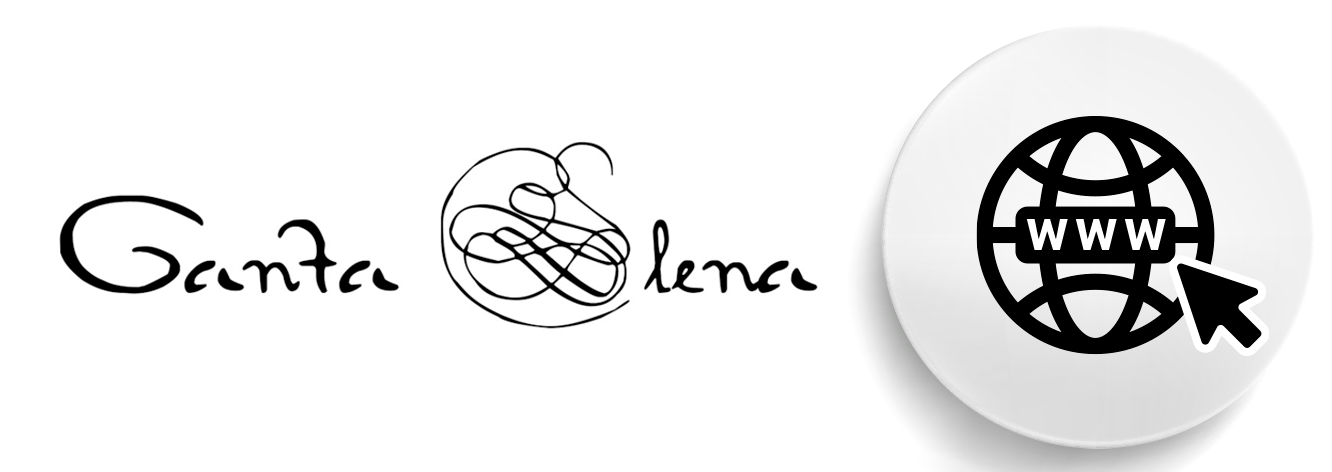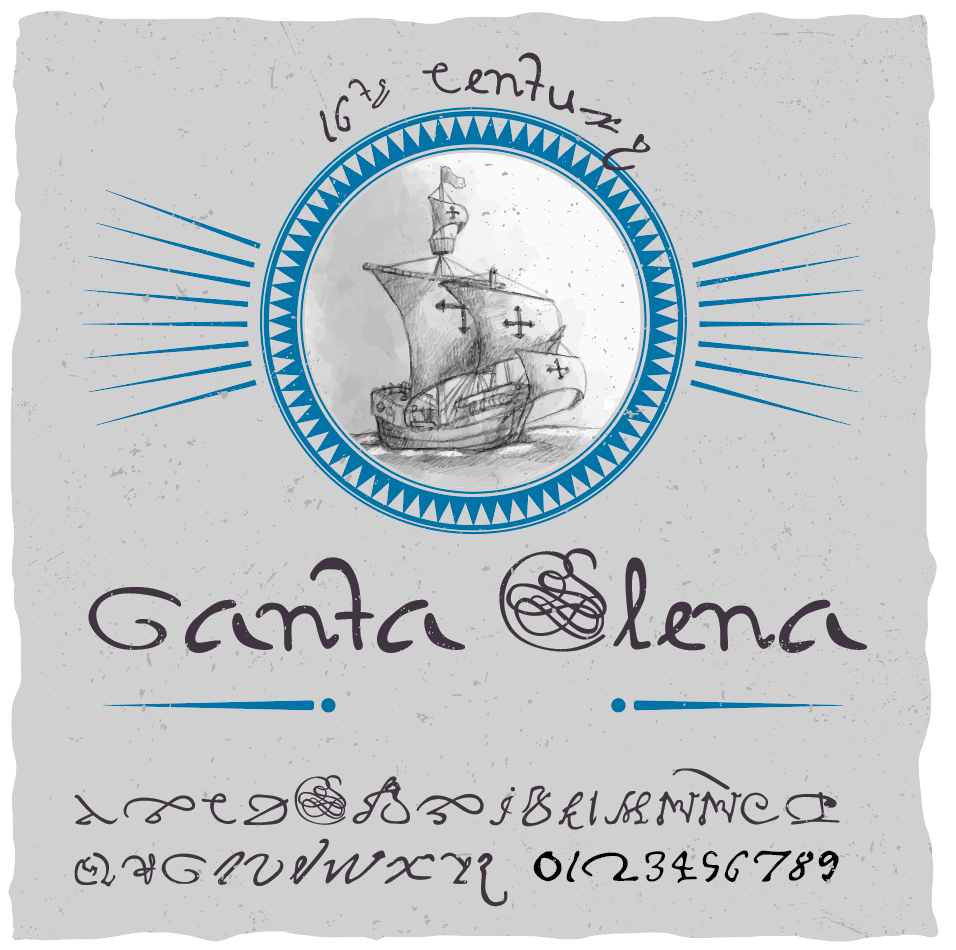
Santa Elena Web Font
In the early months of 1577, a pregnant and recently widowed Spanish noblewoman arrived in Mexico City with her two young children. Doña Catalina Barbón had spent the previous five years living in the northern Spanish settlement of Santa Elena, present-day Parris Island, South Carolina.
There are conflicting accounts of the events that caused her to flee from Santa Elena eight months earlier. Some claimed that doña Catalina’s husband and several other soldiers had been killed when surrounding Native forces launched an attack on the settlement. In the confusion that followed, doña Catalina and her two children barely escaped to one of three ships in the harbor. Upon her arrival in Mexico City, doña Catalina appealed to Mexico’s High Court for financial support.
This font includes letters pulled directly from the petition she left behind, a document that provides a rare glimpse into the challenges faced by many women of the colonial period, as well as their tales of resilience and survival.
The shape and size of the letters found in historical documents varied widely. As such, the spacing for these authentically historical fonts also fluctuates from style to style, with many of the letters extending beyond one or two lines. For best results, we recommend double spacing when using these fonts.